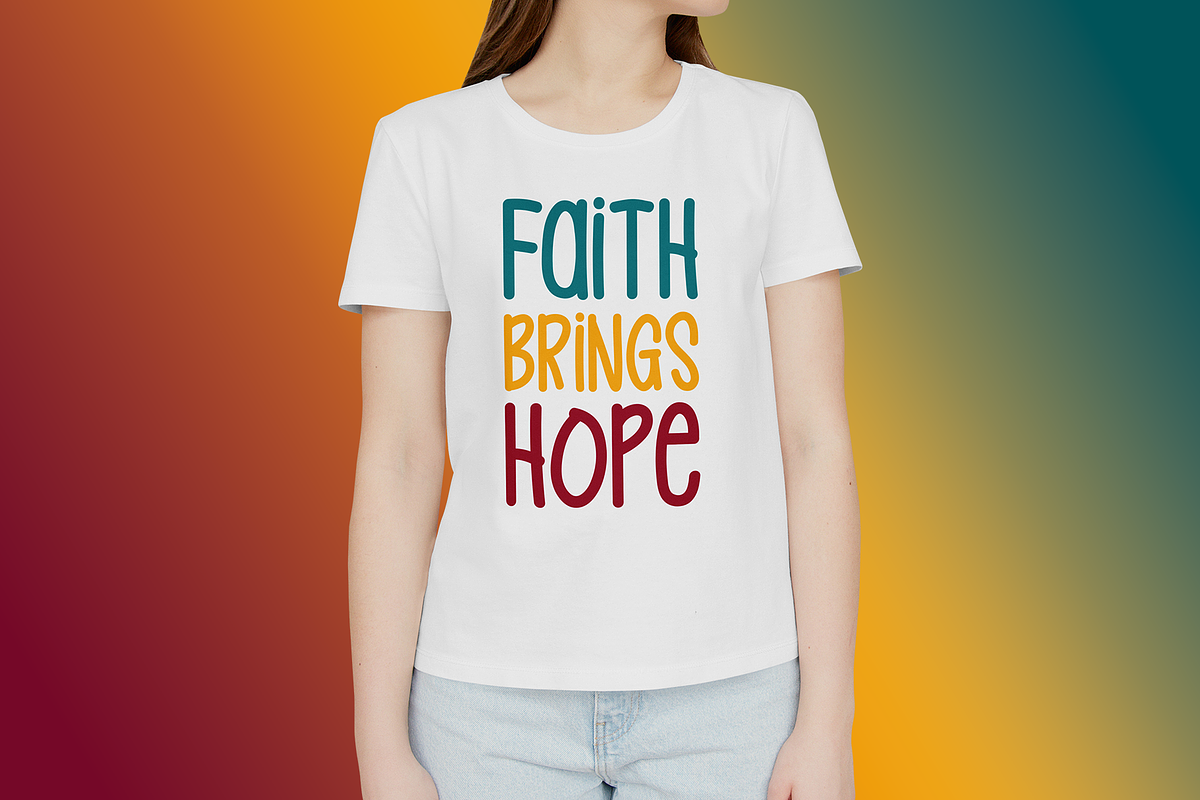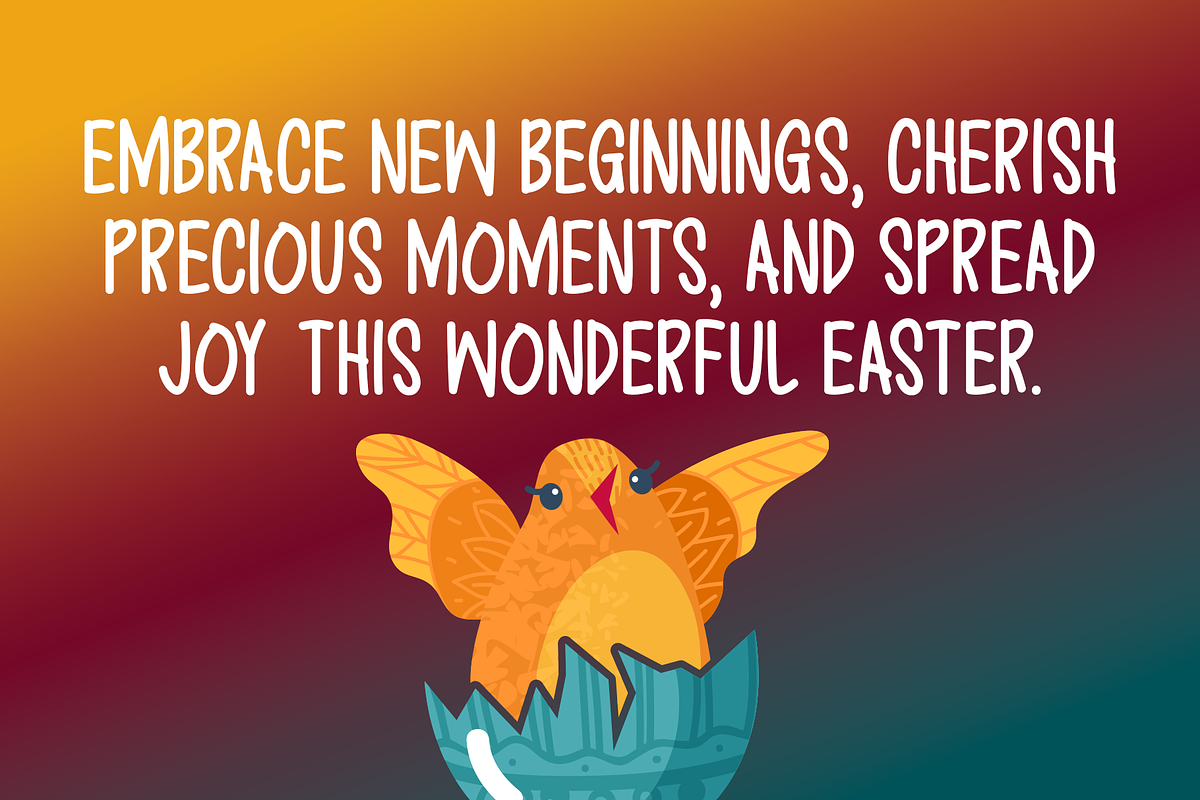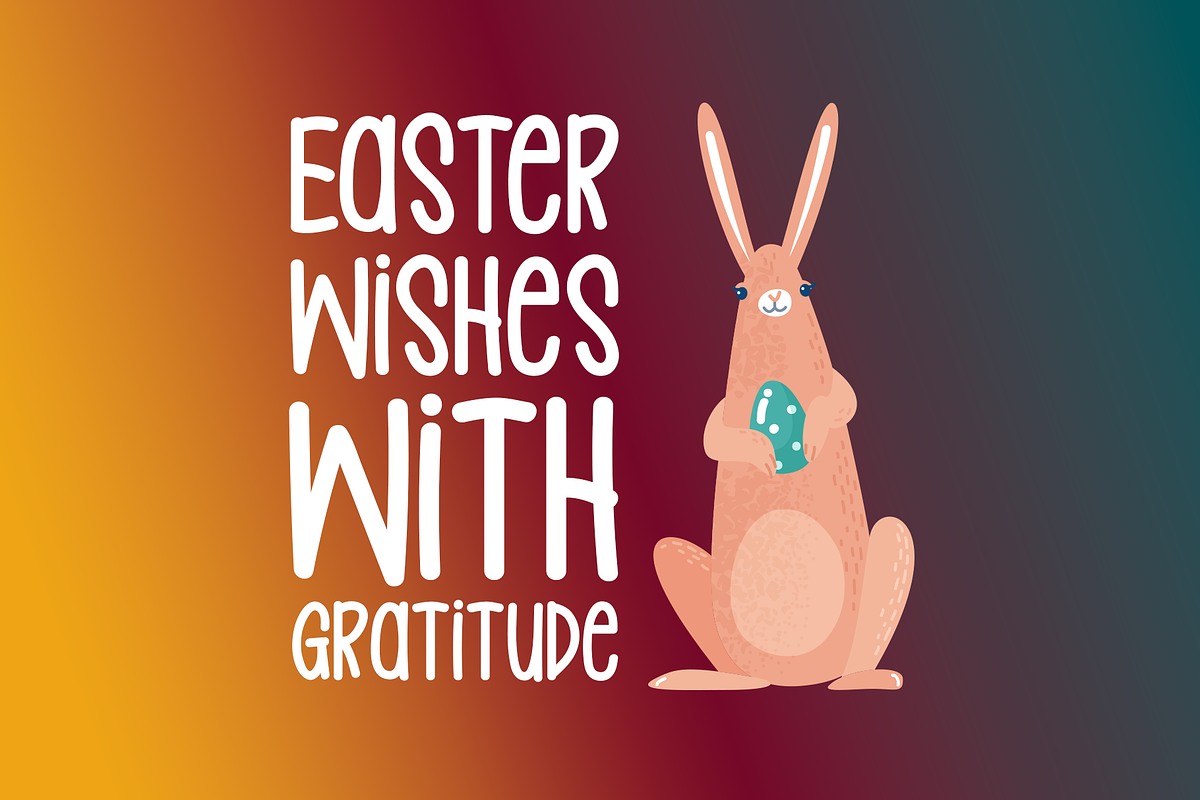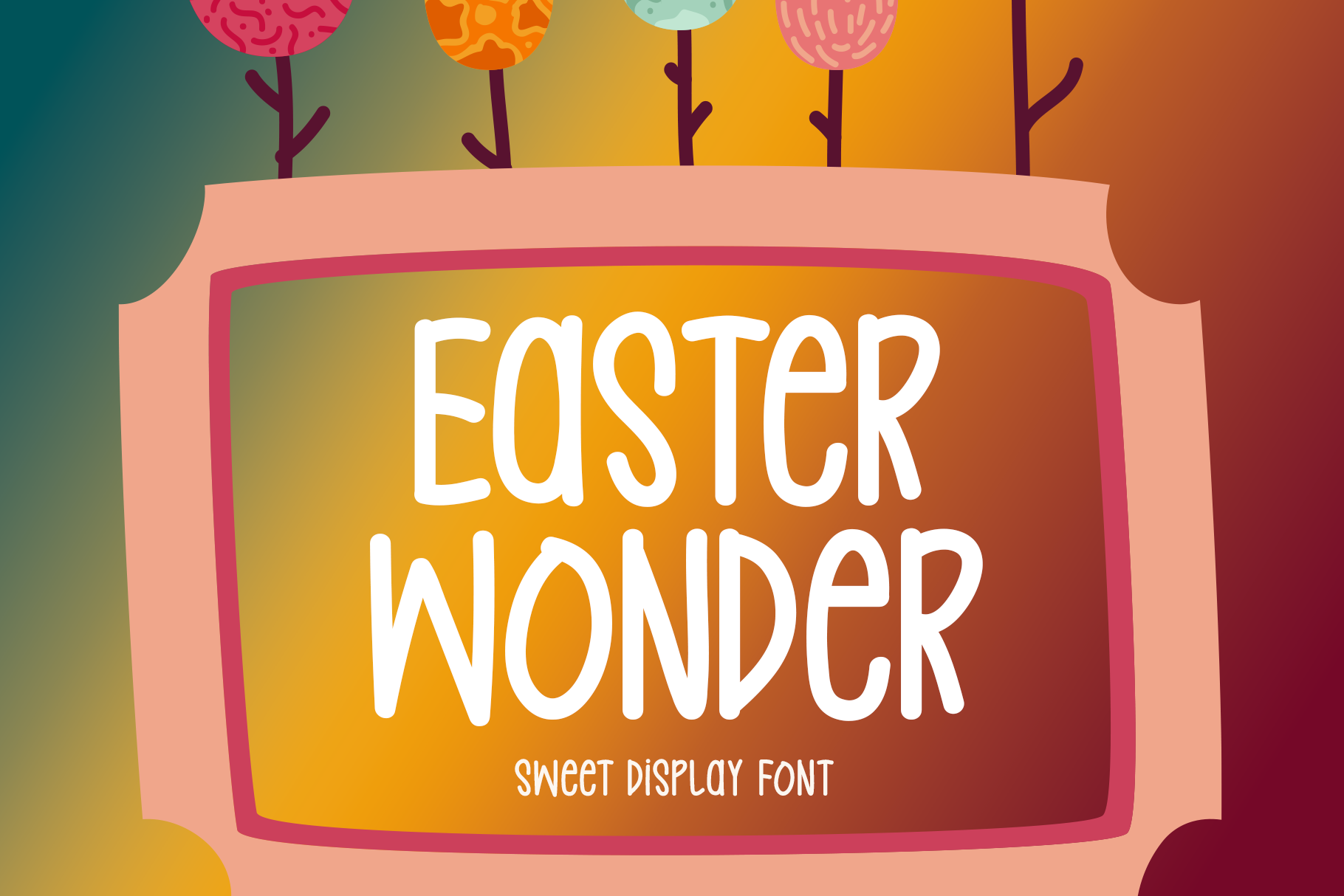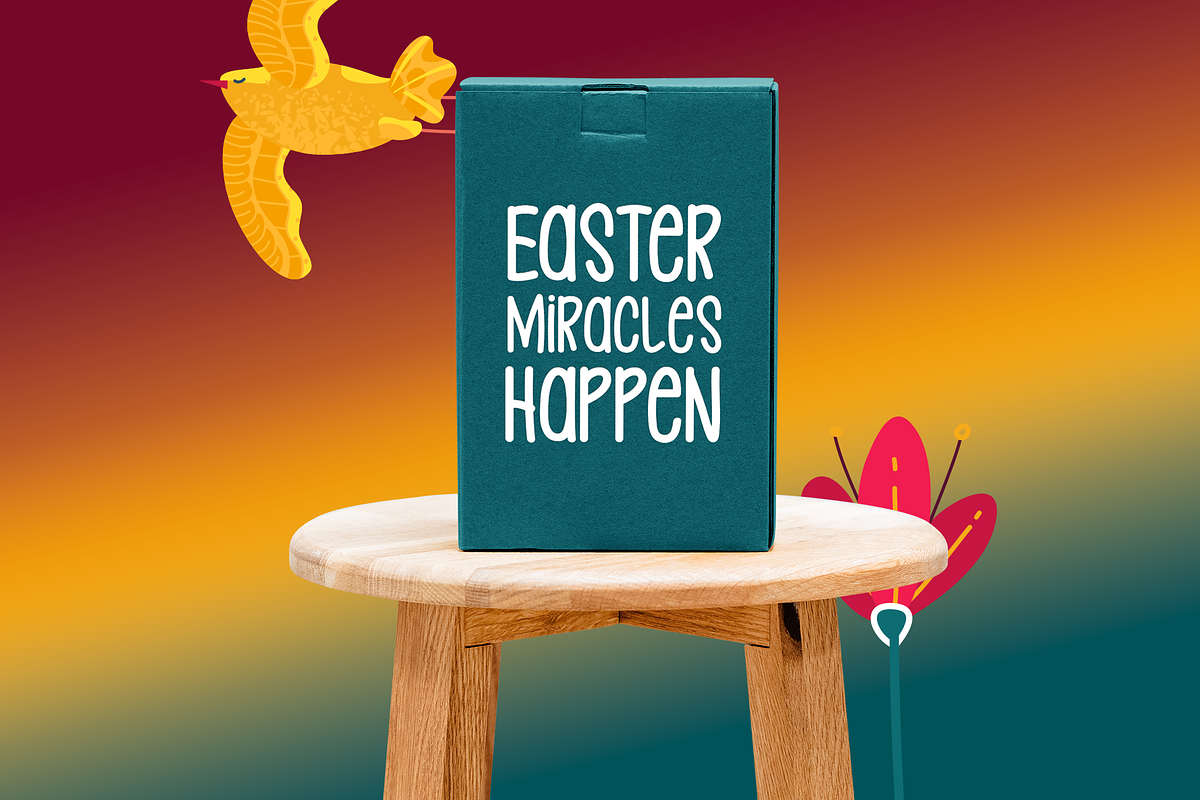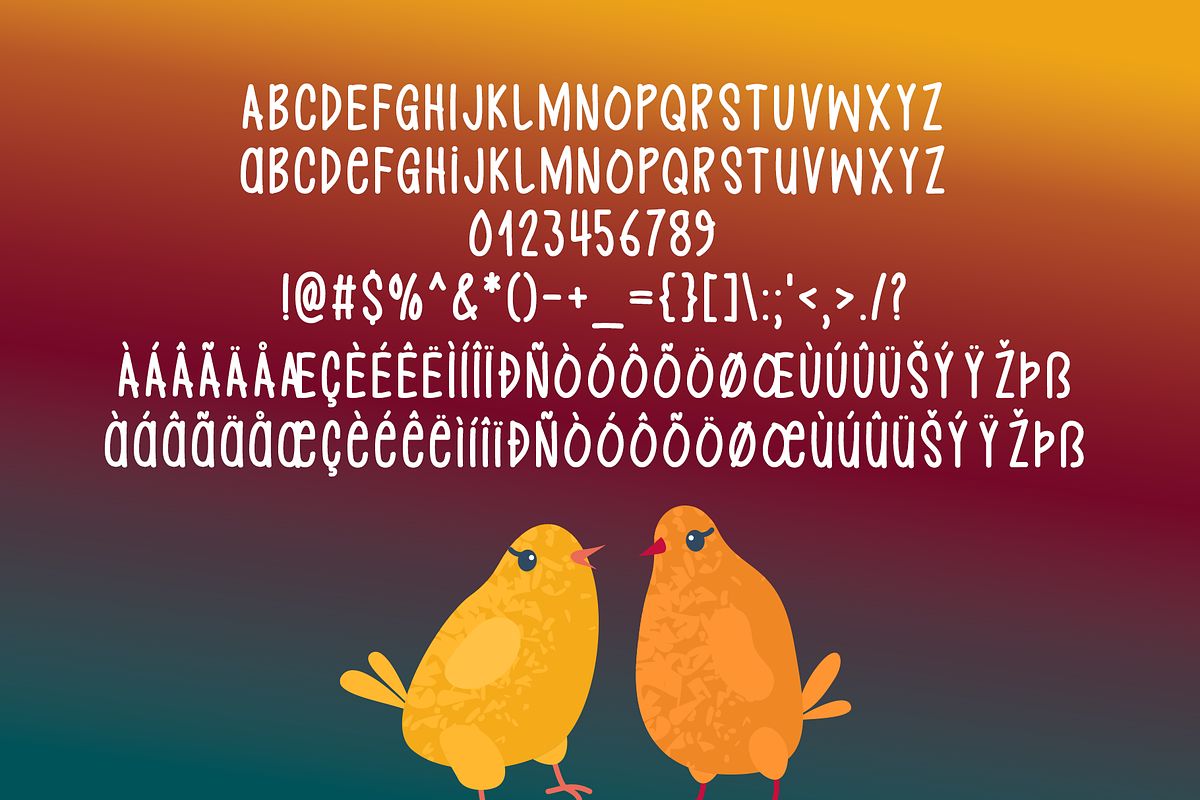
Easter Wonder Typeface
Introducing Easter Wonder!
Easter Wonder is a cheerful and whimsical handwritten display font that brings a sense of warmth and charm to your designs. Ideal for a variety of creative endeavors, it shines in logos, stationery, t-shirt prints, and other paper-based projects. Whether you’re designing website headers, photo frames, promotional flyers, or album covers, Easter Wonder adds a playful touch to your visuals. Its versatility makes it an excellent choice for both digital and print designs, making every project feel fresh and uniquely styled.
Includes a range of multilingual support